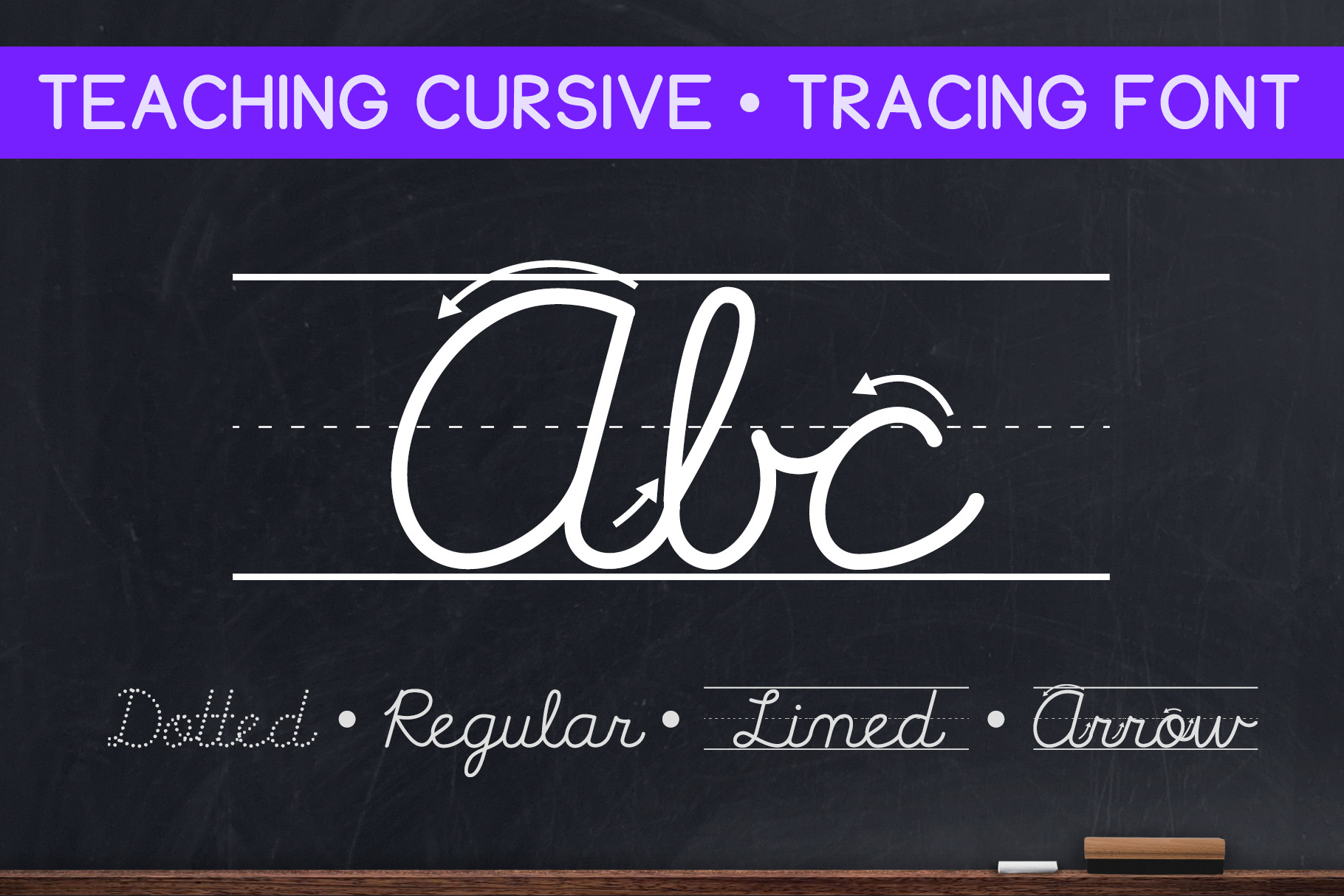
Teaching Cursive Letter Tracing Font
This cursive letter tracing font is for teachers & learners of any skill level looking to create their own custom handwriting sheets to capture the attention of their students and keep them engaged.
By including your child’s name, they are more likely to be engaged in learning how to write, read and recognize letters. This will quickly spark an interest in writing by allowing your little students to see their own name (or things they are interested in) on the page.
The Teaching Cursive font family currently includes 8 styles:
- Lined
- Dotted
- Arrows
- Arrows Dotted
- Not Lined
- Dotted
- Arrows
- Arrows Dotted